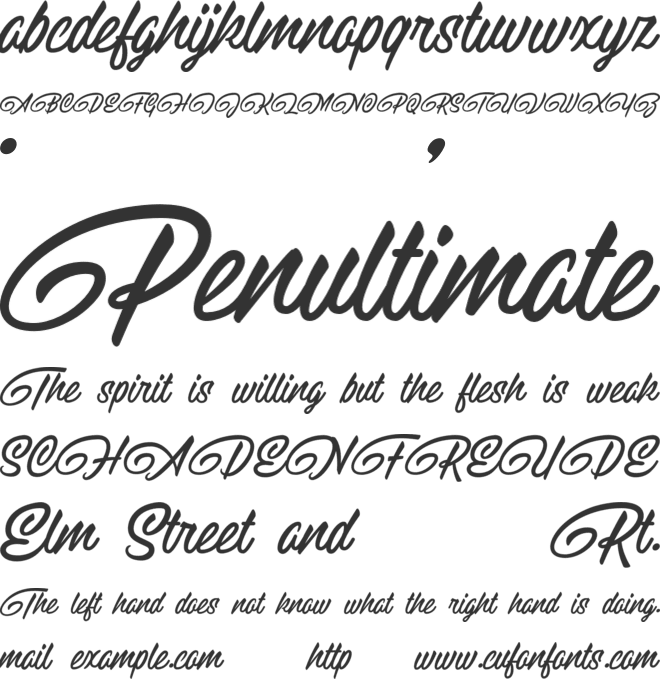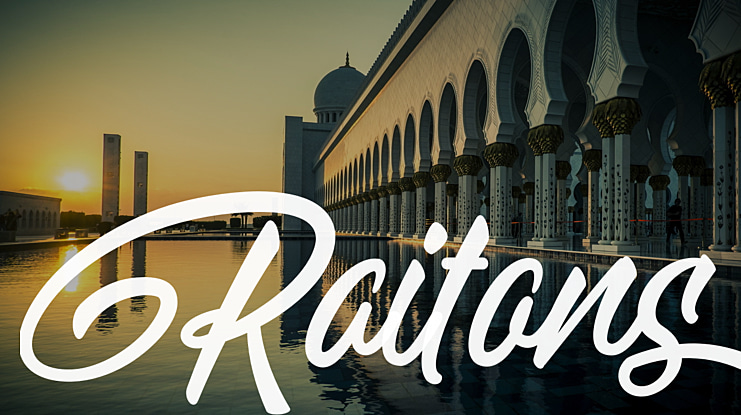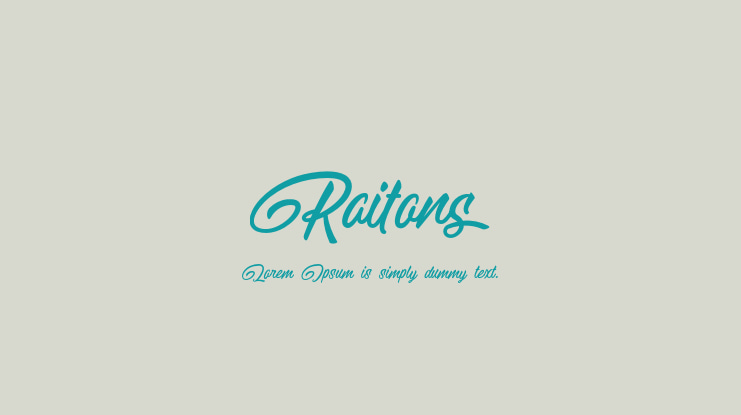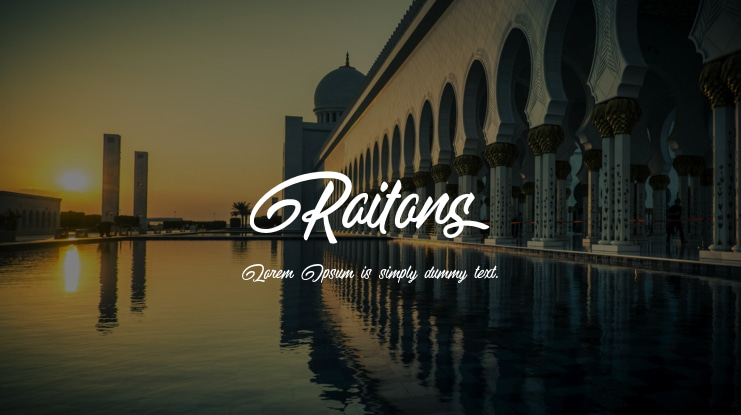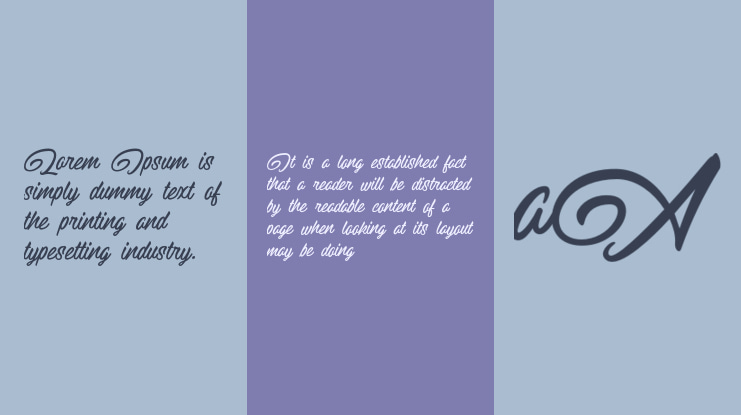
Raitons Font
Introducing Raitons. A display script font, perfect for many display purposes. Works well on both modern and vintage style. You can check the preview samples for trigger some ideas .